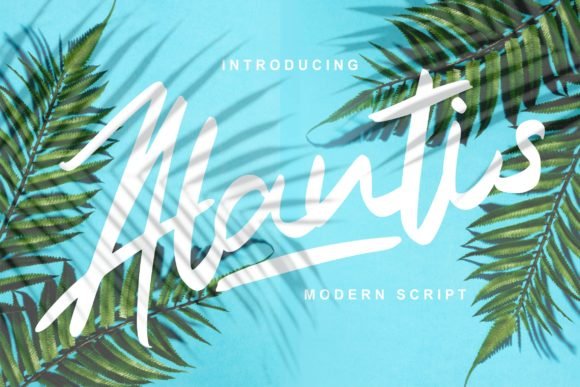
The Perfect Blend of Classic and Modern: Introducing Alantis Font
As designers, we’ve all been there – staring at a blank page, trying to find the perfect font to bring our creative vision to life. The search is over, because we’re excited to introduce you to Alantis Font, a beautiful handwritten font that combines the elegance of classic typography with a modern twist.
With its unique style and PUA encoding, Alantis Font makes it easy to add a touch of personality to any design project. Whether you’re working on a branding project, a wedding invitation, or a social media campaign, this font is sure to make your designs stand out. What makes Alantis Font truly valuable for designers is its versatility – it’s the perfect blend of classic and modern, making it a must-have for any creative project.
Atlantis Font Key Features
- Unique Characteristics: This font features a unique blend of modern and classical elements, with subtle flair and sophistication, making it ideal for premium branding and design projects.
Designer Review: Atlantis Font
Atlantis Font is a beautifully designed script font that adds a touch of elegance to any project. Here are some things that really stand out to me:
- ✨ The fluid, cursive lines of Atlantis Font make it perfect for creating a sense of movement and energy.
- ✨ The font’s versatility allows it to be used in a wide range of applications, from branding and advertising to editorial and educational content.
- ✨ The subtle flair and flourish of the font’s letters add a touch of sophistication and refinement.
- ⚠️ The font may be too ornate for some projects, making it difficult to read at smaller sizes or in low-light conditions.
- ⚠️ Some users may find the font’s cursive lines to be too playful or childish for certain applications.
Overall, I’m impressed with the design of Atlantis Font. While it may not be suitable for every project, it’s a great choice for anyone looking to add a touch of elegance and sophistication to their work. With a little care and attention to font size and application, Atlantis Font can be a real showstopper.
Tips for Getting the Most Out of Atlantis Font
Use the Atlantis font for titles and headings to add a touch of elegance and sophistication to your designs.
Experiment with different font sizes and styles to create visual interest and hierarchy in your designs.
Combine the Atlantis font with other fonts to create a unique and eye-catching typography.
Common Use Cases for Atlantis Font
Use the Atlantis font for:
Corporate branding and marketing materials
Photography and design portfolios
Any project that requires a touch of luxury and sophistication